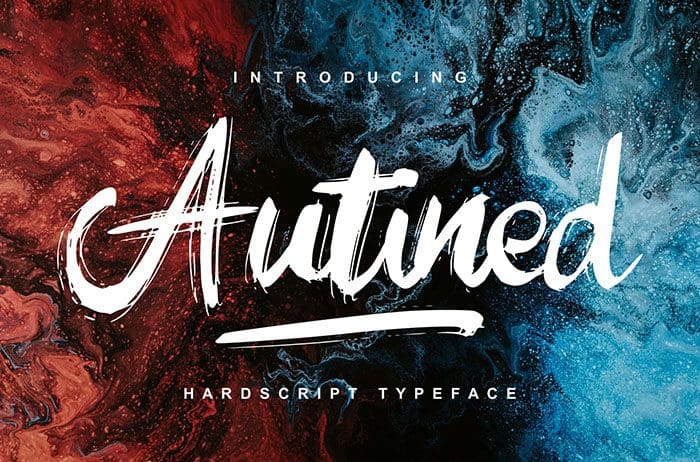
Autined Script Font
Autined is a great script font with a calligraphy style. It is perfect for greeting cards, branding materials, business cards, quotes, posters, and more. Thanks to Vunira Studio for sharing this font! Take a look at this portfolio for more of his stunning fonts.